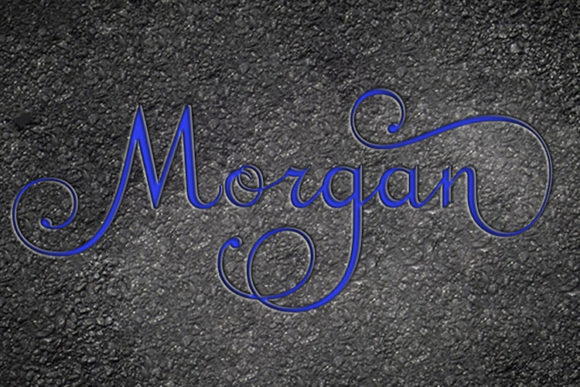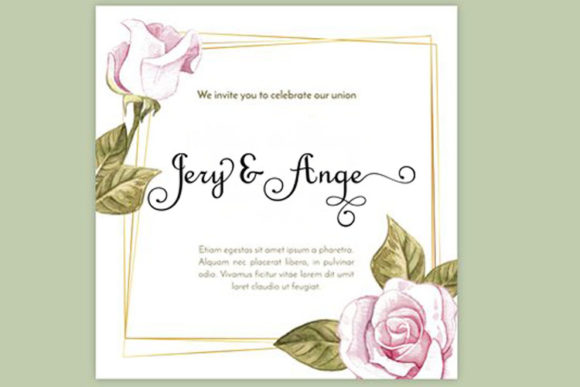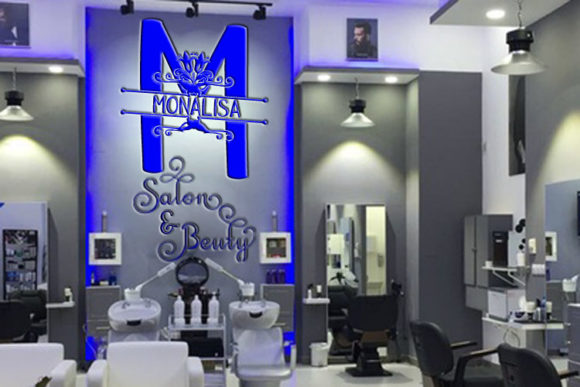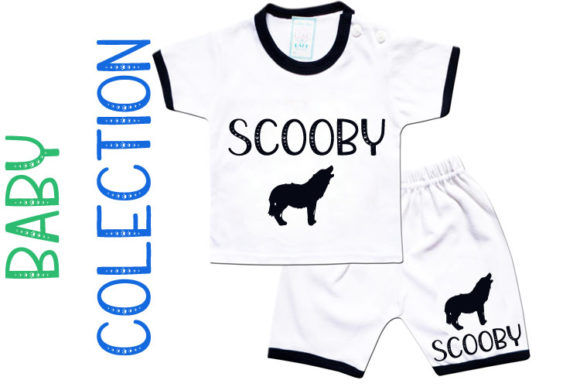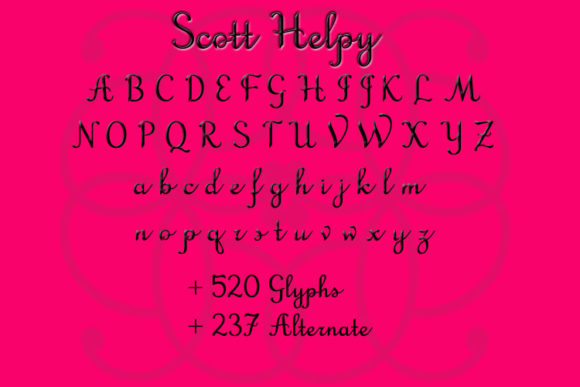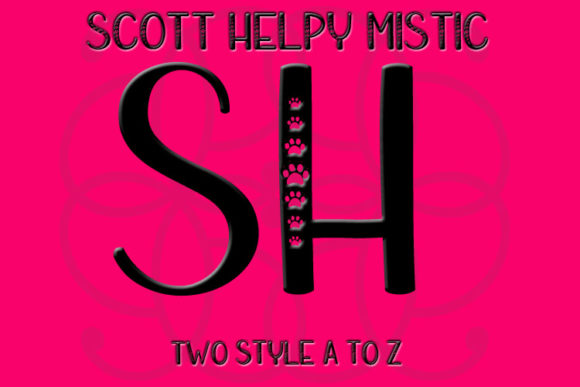
Introduction to Scott Helpy Family Font Font
Fonts play a crucial role in design, and the Scott Helpy Family Font font is a typeface that brings both character and versatility to any project. Whether you’re working on a branding project, a website, or a print design, the Scott Helpy Family Font font offers a unique style that can elevate your work.
The Scott Helpy is a large font family with a fresh design.
Its handwritten and includes amazing swashes which will give your design an glamorous feel Itβs perfect for greeting cards, branding materials, business cards, quotes, posters, and every other design which needs an upscale and chic look.
Key Features of Scott Helpy Family Font Font
Why Choose Scott Helpy Family Font Font?
The Scott Helpy Family Font font is more than just a typeface β it’s a design tool that helps you communicate your message with style and clarity. Its unique character set and versatile design make it suitable for a wide range of applications, from elegant invitations to bold headlines.
With its carefully crafted letterforms and balanced proportions, the Scott Helpy Family Font font ensures readability and visual appeal across all mediums.
What makes Scott Helpy Family Font font special?
The Scott Helpy Family Font font stands out with its unique design, exceptional readability, and versatility across various design applications.